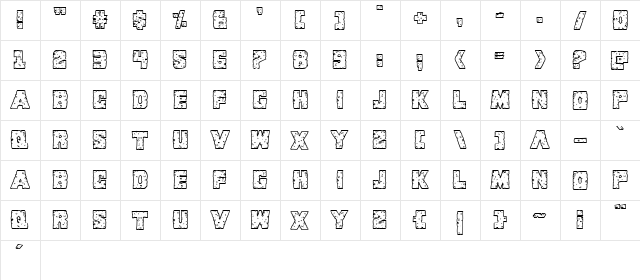
King Commando Riddled III Regular Font Preview
King Commando Riddled III Regular
Design Context for King Commando Riddled III Typeface
King Commando Riddled III is a composed and adaptable typeface that performs quietly and consistently across a wide range of design contexts.